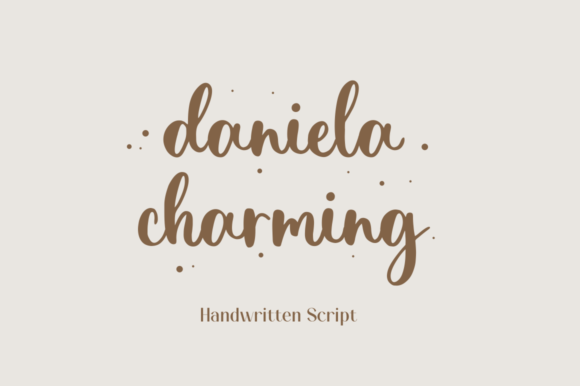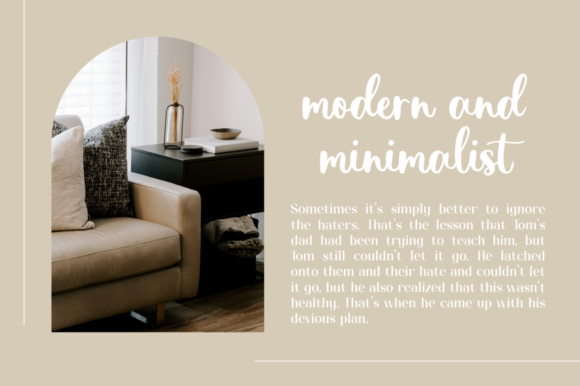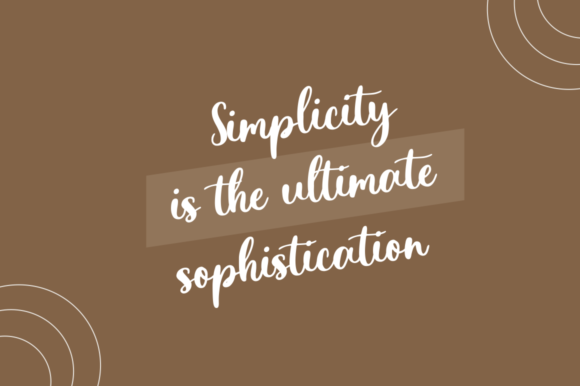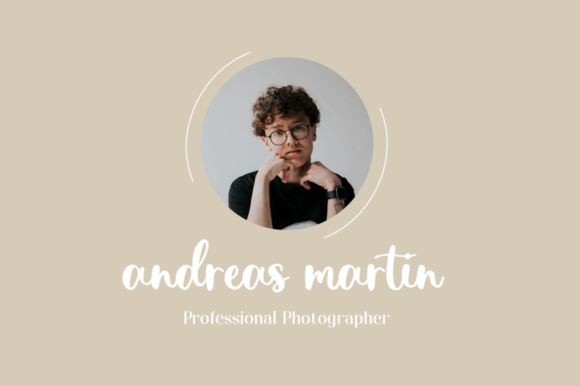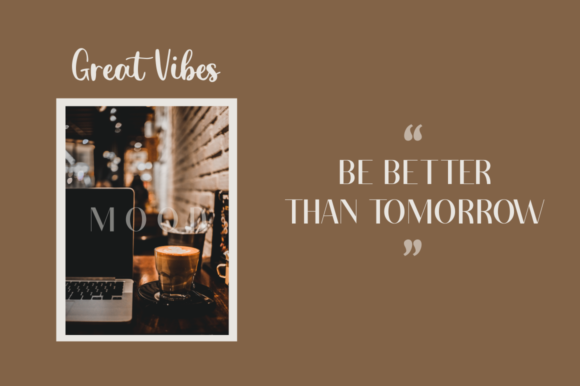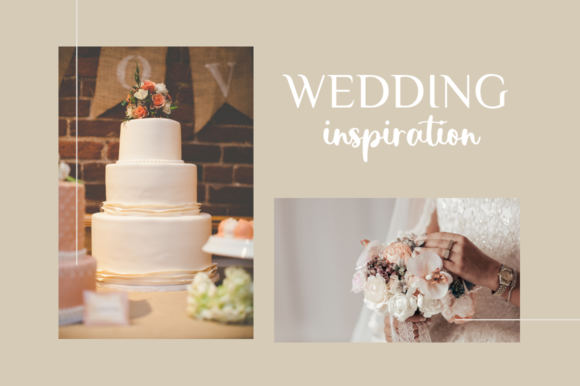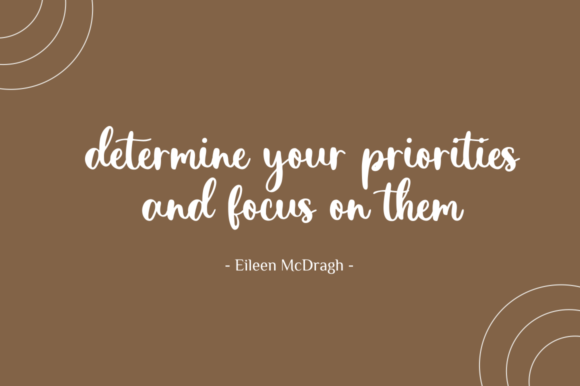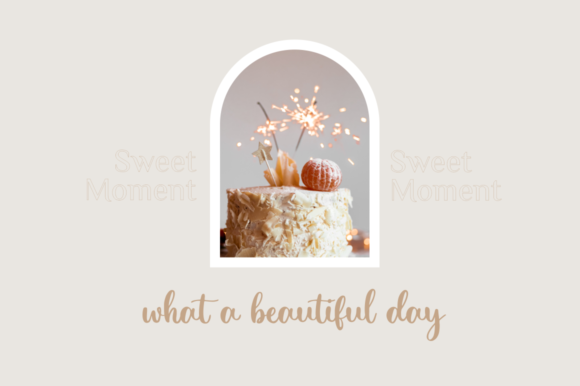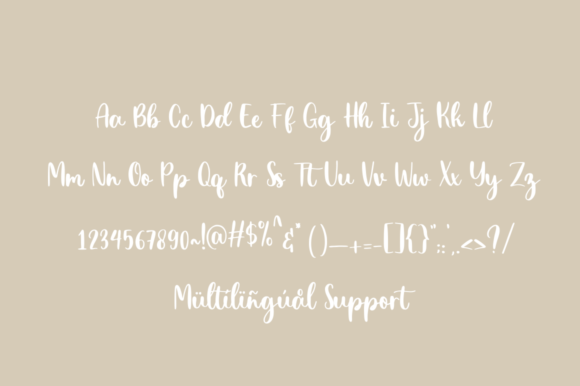
Daniela Charming Font
About Daniela Charming Font
Daniela Charming is a lovely and delicate script font that exudes elegance and charm. With its relaxed and sweet flow, this font adds a touch of beauty and grace to your designs. It is the perfect choice for creating eye-catching logos, branding materials, and quotes that leave a lasting impression. Fall in love with its incredibly versatile style and unleash your creativity to create spectacular designs.
The beauty of Daniela Charming lies in its delicate and flowing letterforms. The gentle curves and smooth strokes create a sense of relaxation and beauty. This font embodies elegance and sophistication, making it an ideal choice for projects that require a touch of refinement.
Daniela Charming shines when used in logos and branding materials. Its lovely and delicate style adds a unique and memorable element to your brand identity. The font’s elegance and charm make a lasting impression, helping your brand stand out from the competition.
When it comes to quotes, Daniela Charming brings a captivating and inspiring vibe. Its relaxed flow and graceful appearance enhance the meaning and impact of the words. The font adds a touch of beauty and emotional depth, making your quotes visually appealing and engaging.
The versatility of Daniela Charming allows it to be applied to various design contexts. Whether you’re creating social media graphics, packaging, invitations, or any other creative project, this font elevates the visual appeal. Its delicate and versatile style complements a wide range of themes and aesthetics, adding a touch of elegance and sophistication.
By embracing the incredibly versatile style of Daniela Charming, you open up a world of possibilities for your designs. The font’s delicate and relaxed flow brings a sense of beauty and grace to your creations. With its captivating charm, it helps you create spectacular designs that captivate and inspire.
Incorporating Daniela Charming into your design projects allows you to create eye-catching compositions. The font’s lovely and delicate script adds a touch of elegance and beauty to your logos, branding materials, and quotes. Let Daniela Charming become your creative companion, and witness how it enhances the visual impact of your designs, creating remarkable and memorable experiences.
In summary, Daniela Charming is a lovely and delicate script font that adds elegance and charm to your designs. Its relaxed and sweet flow exudes beauty and grace. Whether used in logos, branding materials, or quotes, this font captivates viewers with its versatility and style. Fall in love with Daniela Charming’s incredibly versatile nature, and let it unleash your creativity to create spectacular designs that make a lasting impression.